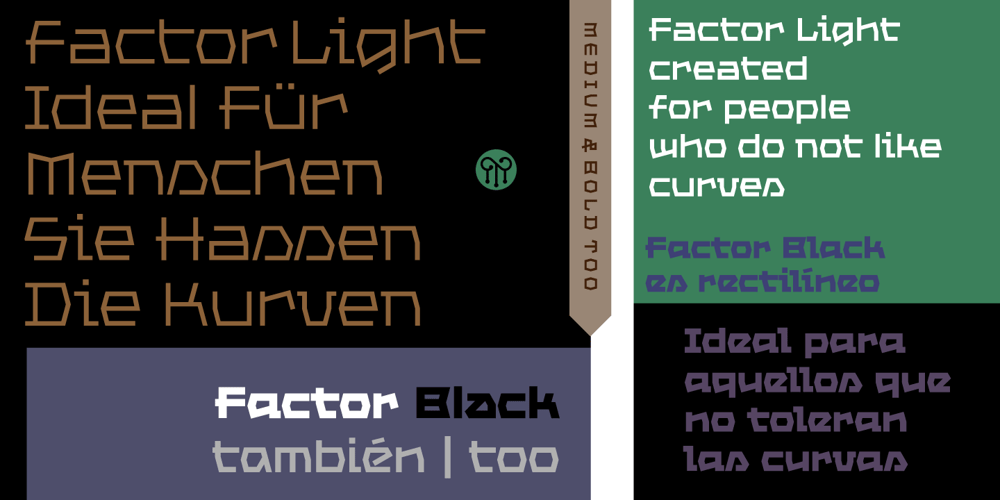
Factor Font Family was designed by John Moore and published by John Moore Type Foundry. Factor contains 4 styles and family package options. Factor is a letter that breaks with convention, providing an attractive geometric look. Fits perfectly sober rigor contemporary editorial design, and for the creation of logos, labels or advertising, just fits both vintage designs spirit as the simple graphic humor. Factor comes with a wide variety of alternative shapes for a more versatile use. As display font readability features that allow use as an innovative text font. Usage recommendations: Due to its linear simplicity of construction, handy for creating 3D characters. In terms of its form, is related to mechanization, the industrial and metallurgical. The black form may be combined with the inline to create colorful typographic uses.